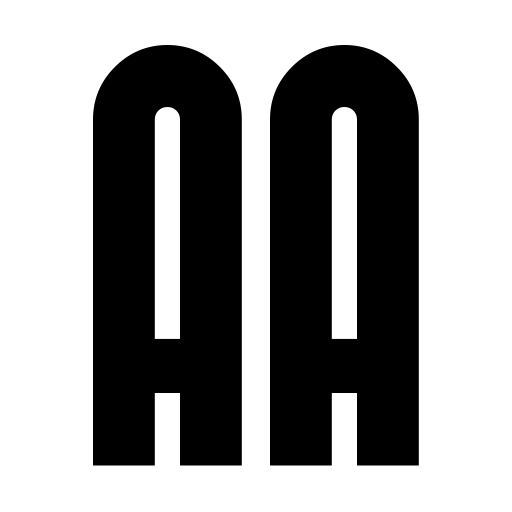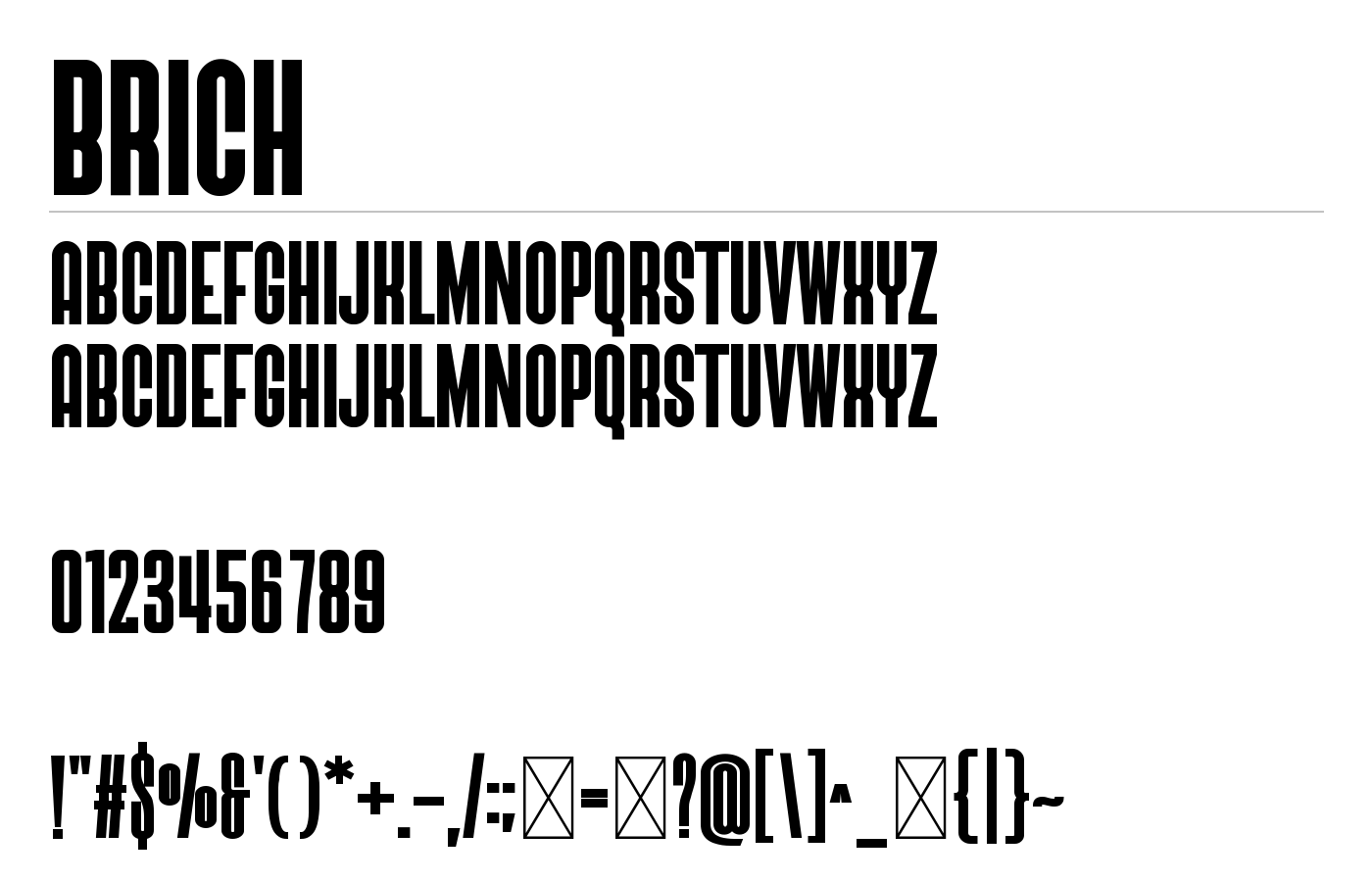
Brich is a bold, condensed sans serif font with a strong vertical emphasis and uniform stroke weight, creating a striking and modern appearance. Its tall, narrow letterforms and tight spacing make it ideal for impactful headlines, logos, and branding where a clean, contemporary look is desired. This font suits designs that need a confident, urban edge without sacrificing readability.
Brich Font